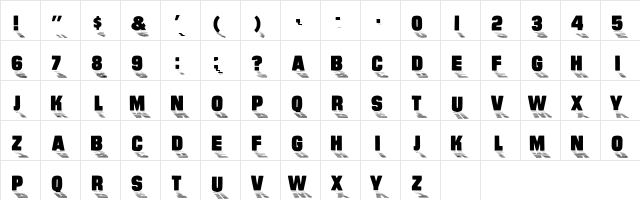
DogDayzCapsSSK Regular
Design Context for DogDayzCapsSSK Typeface
DogDayzCapsSSK is a composed and adaptable typeface that performs quietly and consistently across a wide range of design contexts.